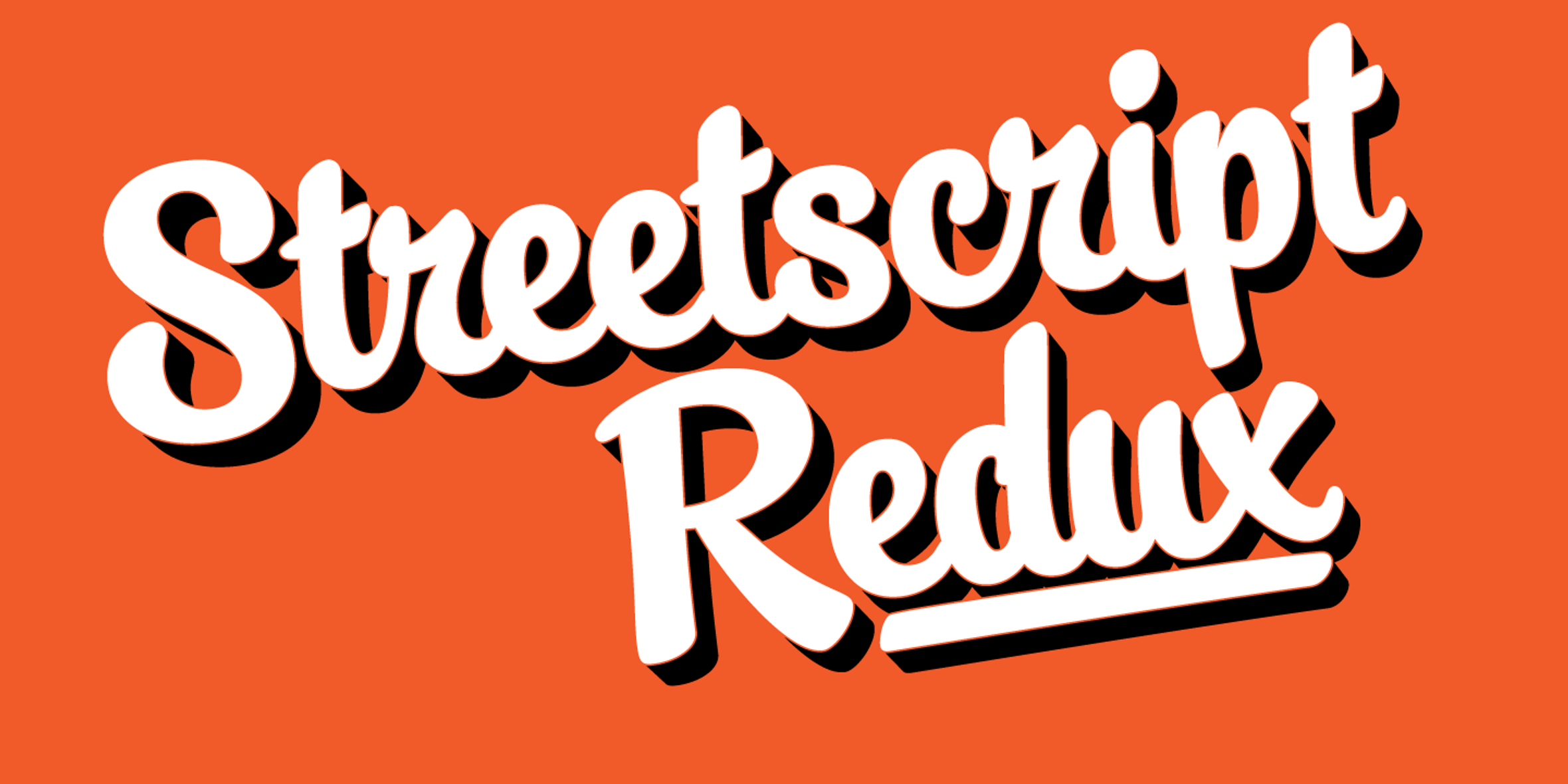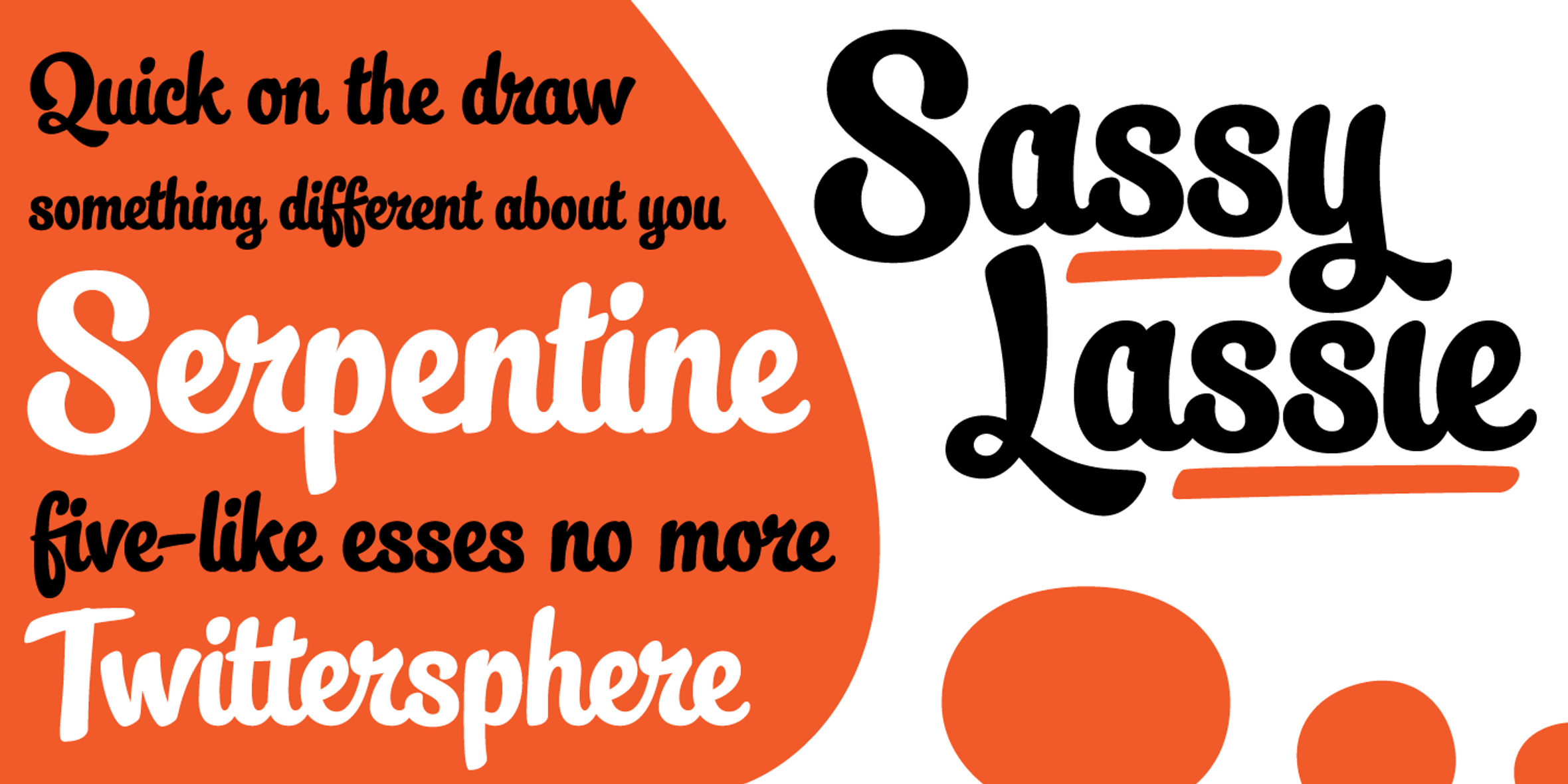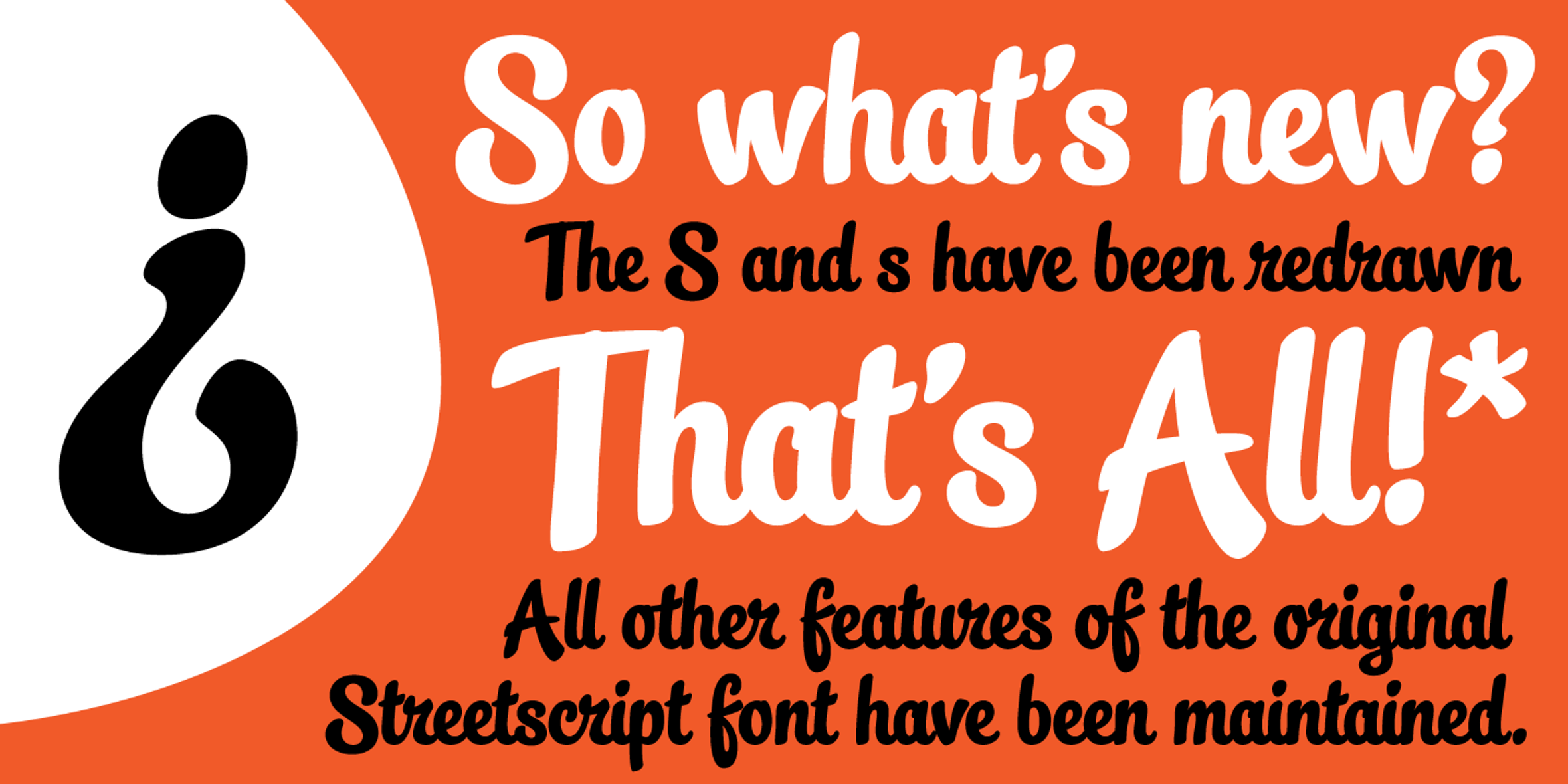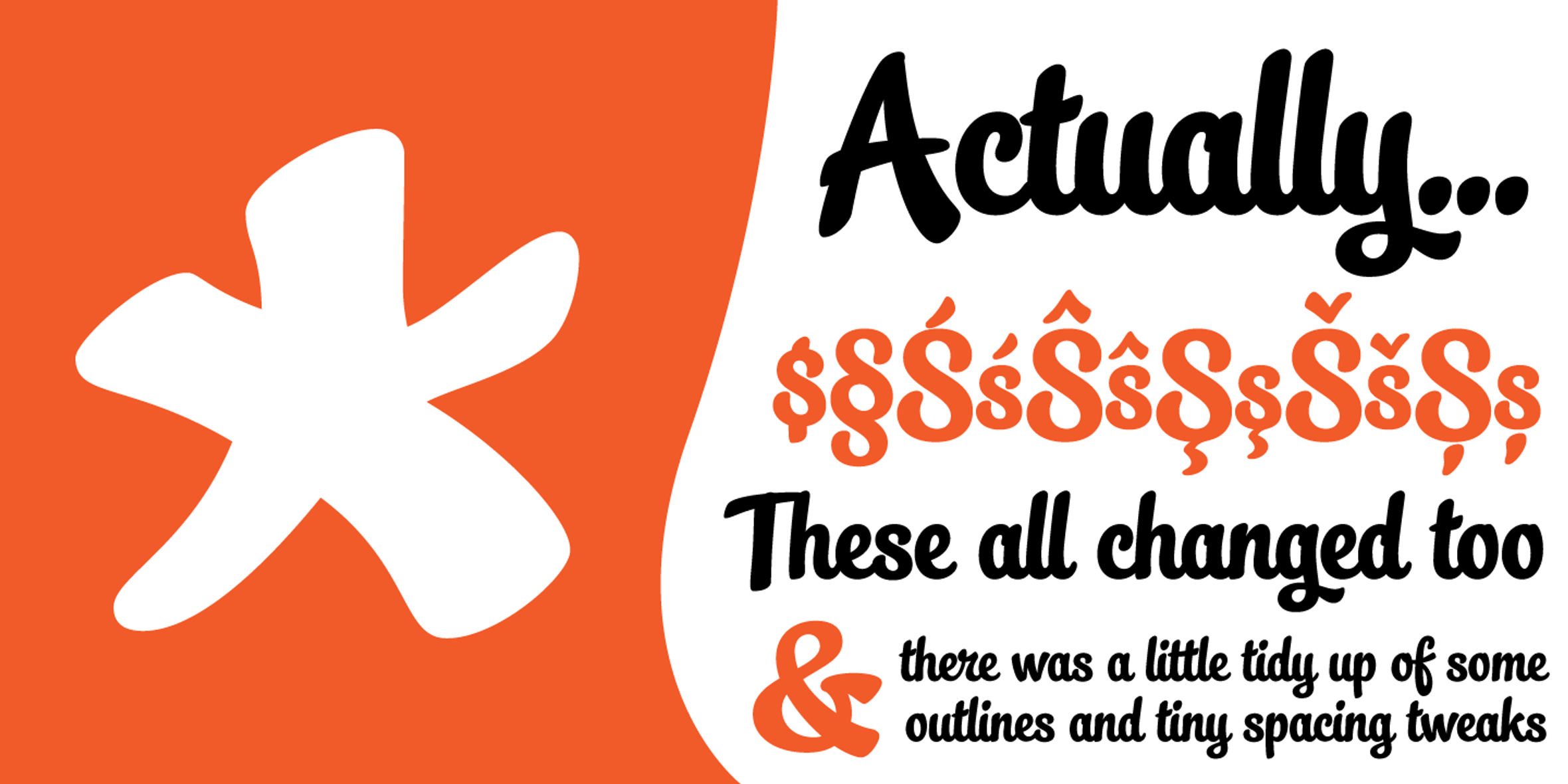
Streetscript Redux
Streetscript Redux is a bold, casual script with a hand-painted, street-savvy swagger. It feels like it belongs on the side of a custom van, a 1970s record sleeve, or the label of a hot sauce bottle made by someone’s tattooed uncle. It’s retro without being precious and works when you want something with individual and expressive vibes. Its casual curves and confident rhythm make it perfect for book covers, home goods packaging, movie posters, hot rod decals, fast food menus, and band flyers.
- Common Ligatures
- Old Style Numerals
- Stylistic Alternates
- Swashes